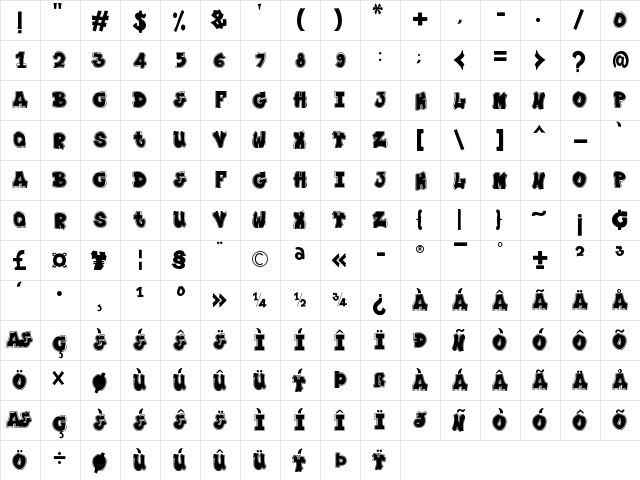
Plump Varsity Regular Free Font
Plump Varsity Regular
Foundry: Dm Letter Studio
Designer: Dimas Prasetyo
Design Context for Plump Varsity
Plump Varsity brings high-energy athletic personality to the page - its confident, muscular forms are built for impact.